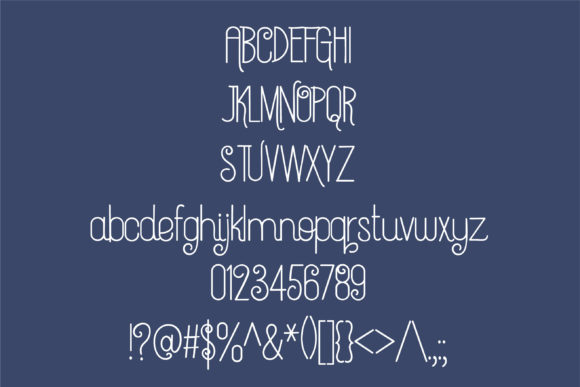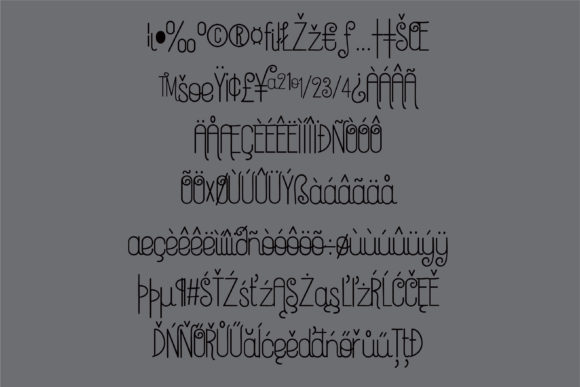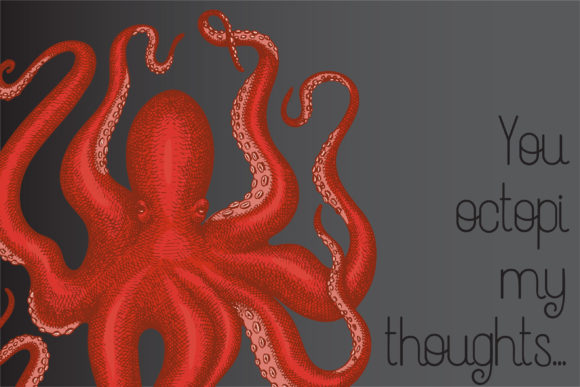
Introduction to Octogamy Font
Octogamy is a thin lettered and curly looking script font.
It has beautiful and well balanced characters and as a result, it matches a wide pool of designs Add it to your most creative ideas and notice how it makes them come alive.